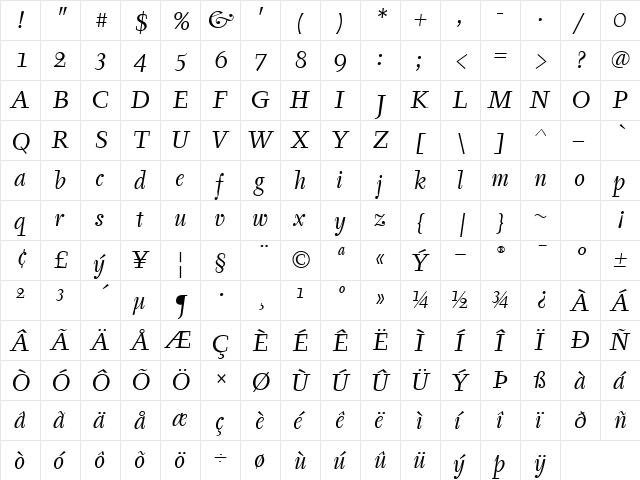
TyfaITC TT BookItalic
| Foundry | International Typeface Corporation |
| Designer | Josef Tyfa/Frantisek Storm |
Design Context for TyfaITC TT Typeface
TyfaITC TT offers clean, dependable letterforms without strong stylistic allegiance, making it a practical choice for designers who need flexibility. Its italic angle brings a sense of urgency and motion to the letterforms.